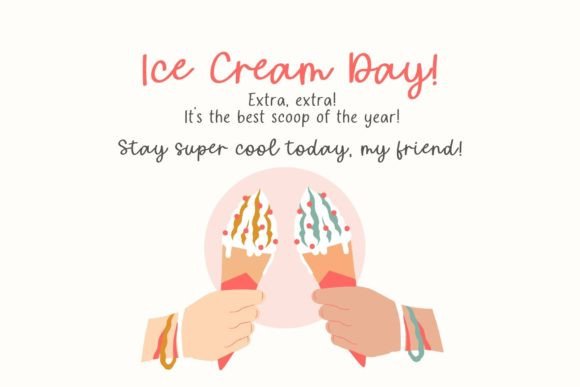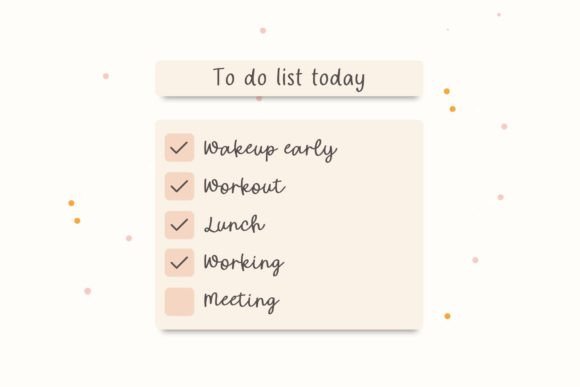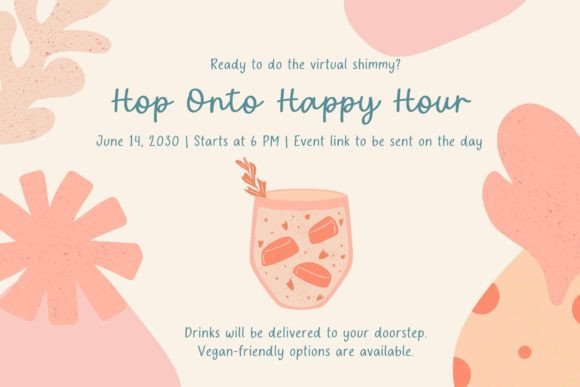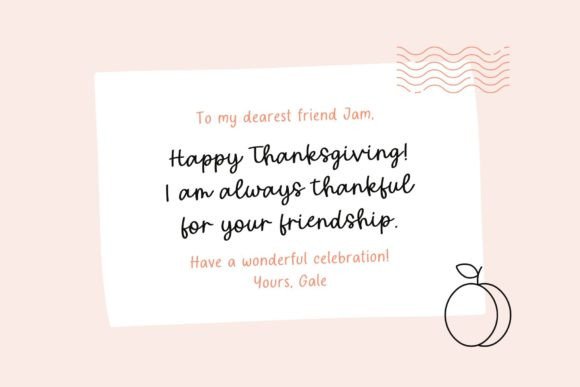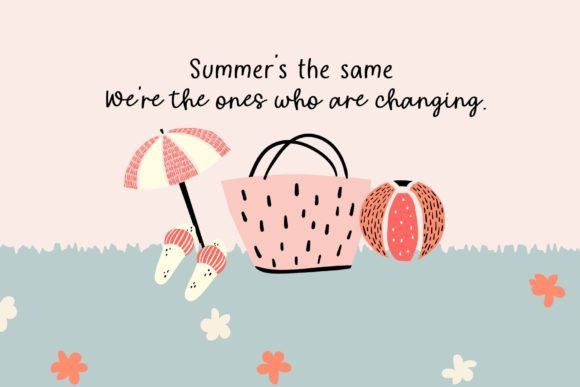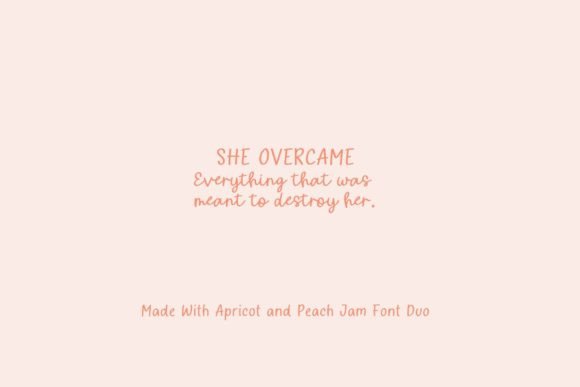
Get Ready to Unleash Your Creativity with a Delicious Duo
As a creative person, have you ever found yourself stuck on a project, staring at a blank page or screen, waiting for inspiration to strike? For many of us, it’s those moments of blankness that spark our most brilliant ideas. And sometimes, all it takes is a dash of the right font to set our imagination ablaze.
Enter the delightful Apricot and Peach Jam Font, a charming handwritten font duo that’s perfect for adding a personal touch to your creative projects. Whether you’re designing digital planners, stickers, quotes, or greeting cards, this font is sure to bring a smile to your face and a dash of whimsy to your work. With its warm, inviting feel, Apricot and Peach Jam Font is a valuable addition to any designer’s toolkit.
Apricot and Peach Jam Font Key Features
- Font Family: Apricot and Peach Jam, a unique and elegant script font designed for various creative purposes.
- Unique Characteristics: The Apricot and Peach Jam font features a beautiful, hand-painted style with subtle texture and imperfections, giving it a personal and artistic touch.
- Font Pairing: Suitable for pairing with sans-serif fonts for a modern and elegant look, or with serif fonts for a more traditional feel.
Designer Review: Apricot and Peach Jam Font
At first glance, the Apricot and Peach Jam Font is a delightful and quirky addition to any digital project. Here are the things that really work well for me: ✨
- Unique aesthetic: This font has a distinct and playful vibe that’s sure to capture attention.
- Customizable: The font offers a range of customizations, from color to texture, allowing users to tailor it to their specific needs.
However, I do have some reservations: ⚠️
- Limited legibility: At smaller font sizes, the Apricot and Peach Jam Font can become difficult to read.
- Overuse of embellishments: While the font’s unique aesthetic is a major draw, it can become overwhelming if overused.
Overall, I think the Apricot and Peach Jam Font is a great choice for designers looking to add a touch of whimsy to their projects. With some careful consideration of its limitations, this font can add a lot of personality and visual interest to a design.
The Apricot and Peach Jam Font is perfect for:
• Food and beverage branding
• Packaging design
• Recipe cards and cookbooks
• Wedding invitations and stationery